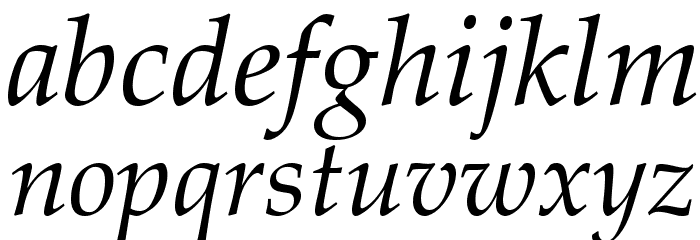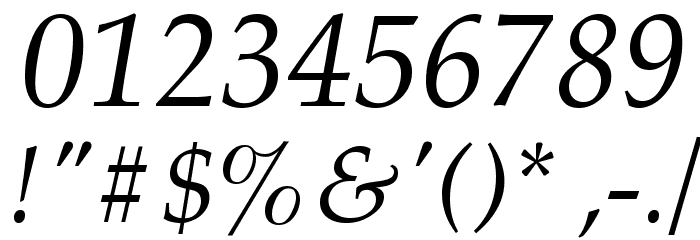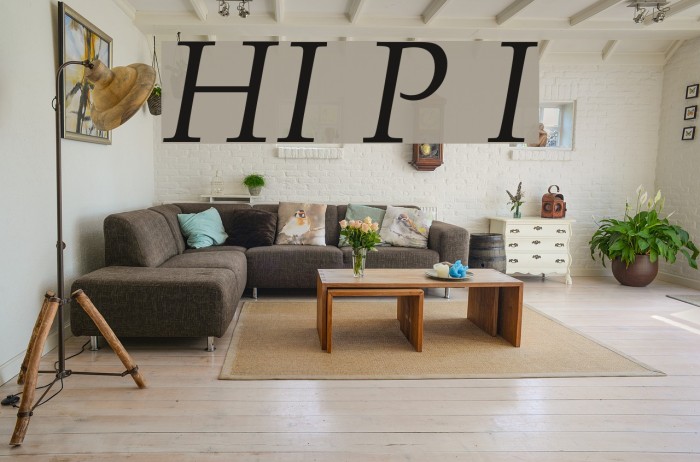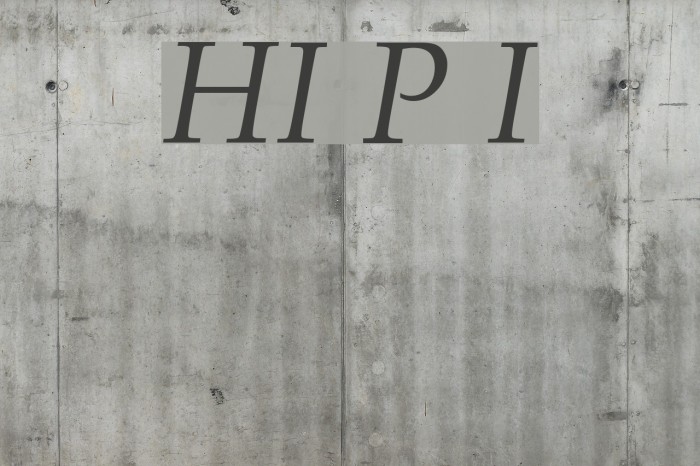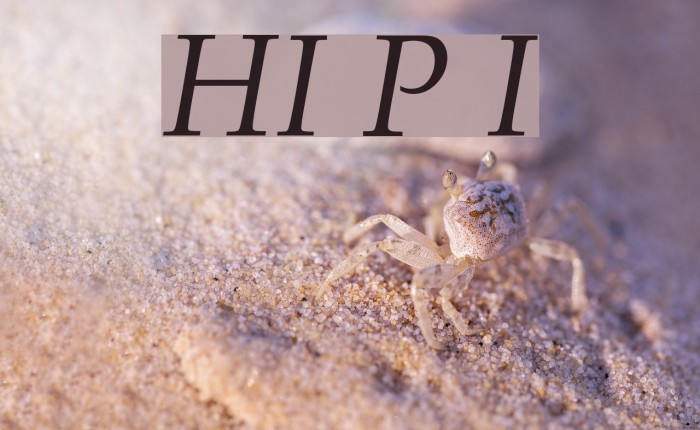
HI Piilani Italic Font
This elegant serif font features a classic italic style with smooth, flowing lines and a refined appearance. The characters are slightly slanted, adding a sense of motion and sophistication. The uppercase letters are tall and stately, while the lowercase letters maintain a consistent height, creating a harmonious balance. The numerals are clear and legible, with a slight curve that complements the overall design. Special characters are thoughtfully designed to match the font's aesthetic, making it versatile for various uses.
An elegant serif italic font with smooth, flowing lines and a refined appearance.
- Proposed Projects: Ideal for formal invitations, elegant branding, book covers, and editorial design.
- Category: Serif
- Overall Style: Classic
- Use Case: Headlines, Body text, Logos